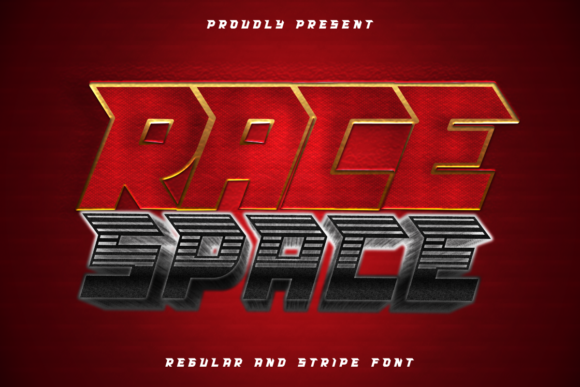
Unleash the Dynamic Spirit of Your Coffee Brand with Race Space Font - The Font That Brews Inspiration!
In a world where creativity is the lifeblood of success, Race Space Font emerges as the ultimate weapon for coffee brands seeking to ignite their visual identity and leave an unforgettable mark on consumers' minds. This remarkable display font, crafted with meticulous attention to detail by the renowned WNGSTD, is a symphony of bold lines, sweeping curves, and captivating characters that dance together in perfect harmony.
As a coffee brand, your identity is more than just a logo or a color palette. It's the essence of your brand's personality, its unique story, and its unwavering passion for delivering an extraordinary coffee experience. Race Space Font empowers you to translate this essence into a visual masterpiece that resonates with your target audience, leaving them spellbound and eager to indulge in your handcrafted coffee creations.
With its innate ability to capture the dynamic energy of the coffee industry, Race Space Font becomes an extension of your brand's narrative. Its bold strokes evoke the rich aroma of freshly brewed coffee, while its elegant curves mirror the smooth, velvety texture of a perfectly crafted latte. Each letterform is a work of art, meticulously designed to reflect the passion, dedication, and artistry that goes into every cup of coffee you serve.
Immerse yourself in the limitless creative possibilities that Race Space Font unlocks. Craft captivating social media posts that ignite engagement and leave your followers craving for more. Design stunning packaging that transforms your coffee products into collectibles, capturing the attention of consumers wherever they go. Create eye-catching menus that entice customers to embark on a sensory journey with every sip.
Race Space Font is not just a font; it's a gateway to a world of boundless creativity, where every design becomes a testament to your brand's unwavering commitment to excellence. It's the font that ignites imaginations, fuels innovation, and brews inspiration in every corner of your coffee brand's empire.